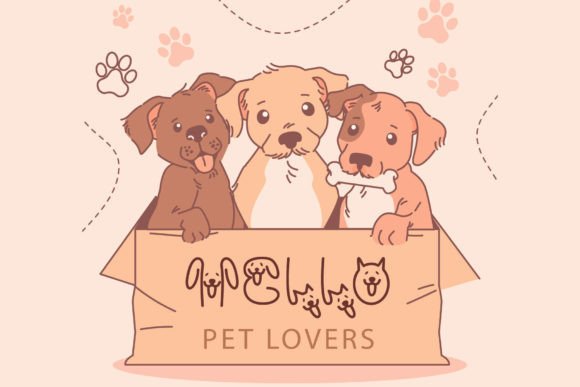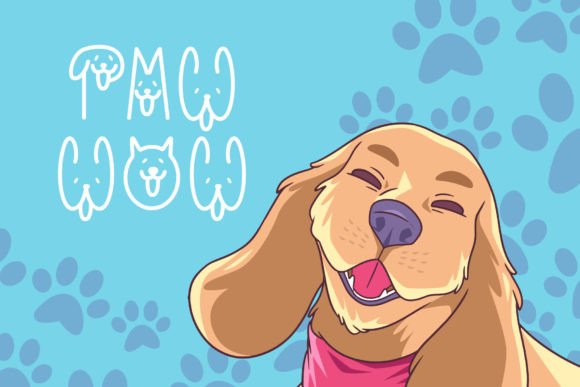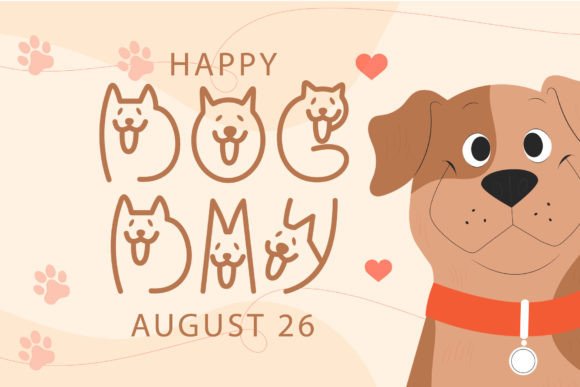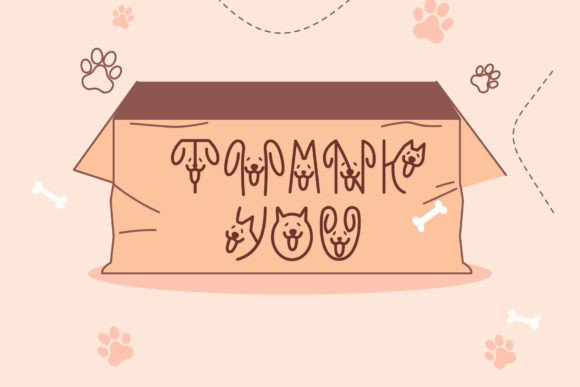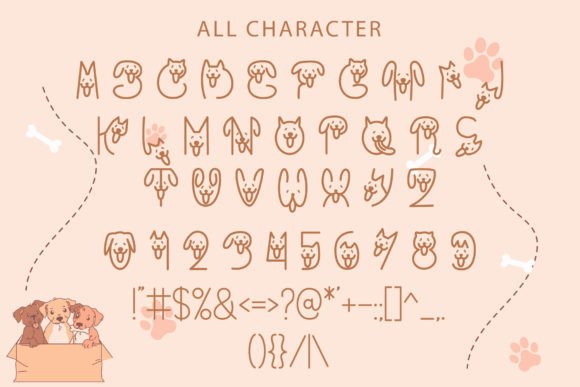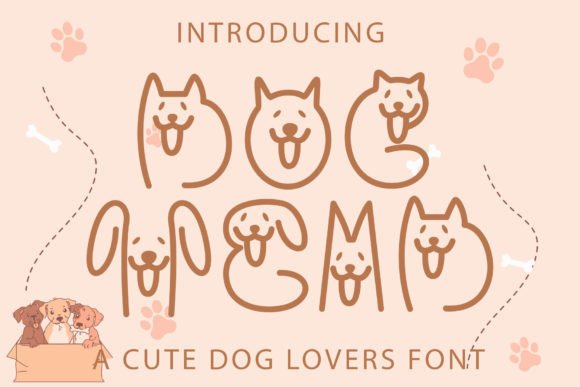
Unleash Your Creativity with Dog Head Font: The Ultimate Decorative Font for Dog Lovers
Are you a dog lover and a crafter looking for a unique and adorable font to make your projects stand out? Look no further than the Dog Head Font! This amazing and cute decorative font features gorgeous dog cliparts that are sure to make your dog-themed crafting projects a hit. In this article, we’ll dive into the world of Dog Head Font and explore its features, benefits, and uses.
What is Dog Head Font?
Dog Head Font is a decorative font that showcases beautiful dog cliparts, making it perfect for dog-themed crafting projects. The font is designed to add a touch of cuteness and playfulness to your designs, making it ideal for crafters, designers, and dog lovers alike. With its unique and eye-catching design, Dog Head Font is sure to make your projects stand out from the crowd.
Features of Dog Head Font
So, what makes Dog Head Font so special? Here are some of its key features:
• Adorable dog cliparts: The font features a range of gorgeous dog cliparts that are sure to delight dog lovers.
• Decorative design: The font has a decorative design that’s perfect for crafting projects, such as cards, invitations, and scrapbooking.
• Unique and eye-catching: The font’s unique design makes it stand out from other fonts, ensuring your projects will be noticed.
Benefits of Using Dog Head Font
• Adds a personal touch: The font’s adorable dog cliparts add a personal touch to your projects, making them more special and meaningful.
• Increases creativity: The font’s unique design inspires creativity and can help you come up with new and innovative ideas for your projects.
• Perfect for dog-themed projects: The font is specifically designed for dog-themed projects, making it a must-have for dog lovers and crafters.
• High-quality design: The font is designed with high-quality graphics, ensuring your projects look professional and polished.
Uses of Dog Head Font
• Dog-themed cards and invitations: Create adorable dog-themed cards and invitations for special occasions, such as dog birthdays or adoptions.
• Scrapbooking: Add a touch of cuteness to your scrapbooking projects with Dog Head Font.
• T-Shirts and mugs: Create fun and unique dog-themed designs for t-shirts and mugs.
• Dog blog and social media graphics: Use Dog Head Font to create engaging graphics for dog blogs and social media channels.
Tips for Using Dog Head Font
• Experiment with different colors: Try out different colors to match your project’s theme and style.
• Use with other fonts: Combine Dog Head Font with other fonts to create a unique and eye-catching design.
• Adjust font size: Adjust the font size to fit your project’s needs and design.
In conclusion, Dog Head Font is an amazing and cute decorative font that’s perfect for dog-themed crafting projects. With its adorable dog cliparts, decorative design, and ease of use, it’s a must-have for crafters, designers, and dog lovers alike. Whether you’re creating cards, invitations, scrapbooking, or social media graphics, Dog Head Font is sure to add a touch of cuteness and playfulness to your designs.